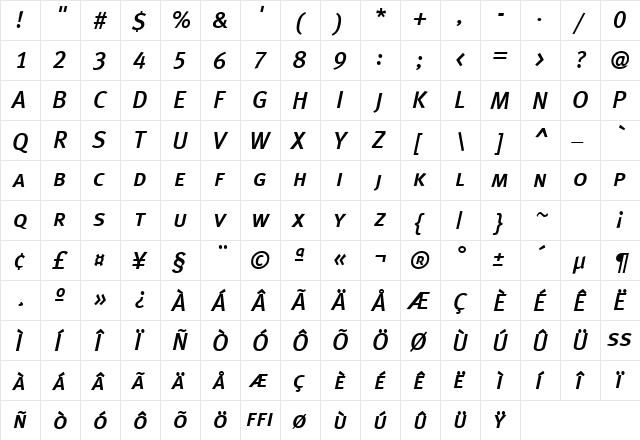
MetaPlusMedium-CapsItalic Regular Font Preview
MetaPlusMedium-CapsItalic Regular
Design Context for MetaPlusMedium-CapsItalic Typeface
MetaPlusMedium-CapsItalic takes a measured approach to typography — its balanced proportions and neutral character make it a reliable workhorse for both digital and print work. The slanted form adds forward momentum and visual energy.
Pro Tip: Use MetaPlusMedium-CapsItalic for emphasis, pull quotes, and subheadings where its slanted energy can add rhythm to the layout.